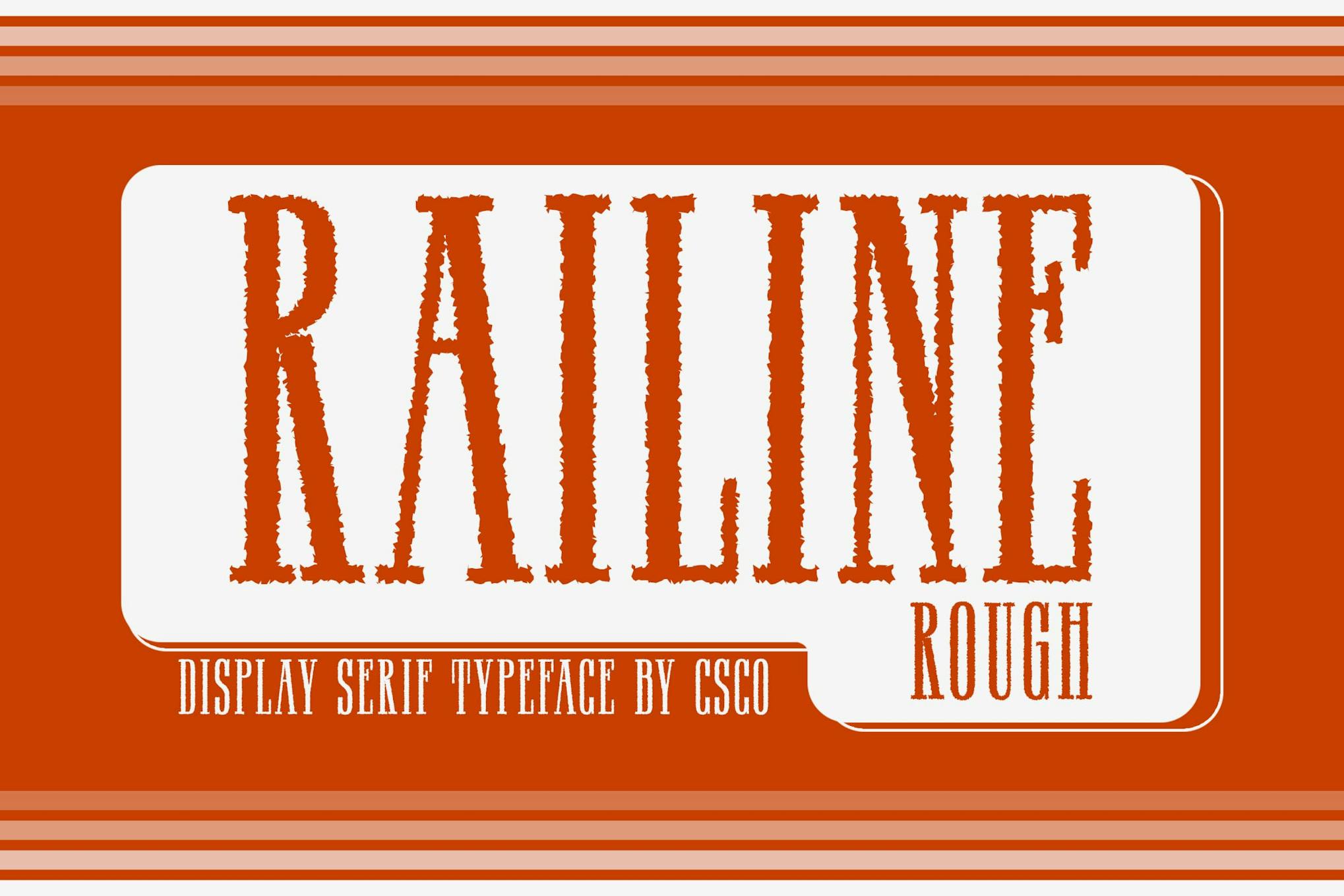
Railine Rough Font
Railine Rough Font Free Download offers a powerful blend of industrial grit and vintage charm, perfect for projects that demand a sense of history and authenticity. While you can download this font for free for testing purposes, for commercial use, you must purchase this font to unlock its full creative potential. This versatile typeface is ideal for a variety of projects, including rustic branding, retro logos, t-shirt designs, posters, and packaging for artisanal goods. What makes this font so exciting is its genuine, distressed texture, which gives every letter a weathered, hand-stamped quality that feels both personal and timeless. The Railine Rough font family includes a range of styles, such as Regular Rough, Bold Rough, and a complementary clean version, providing a complete and flexible design solution.
This isn’t just a font; it’s a story told through typography. The design of Railine Rough is inspired by old-school industrial signage and rugged, hardworking aesthetics. Its condensed letterforms and gritty texture give it a commanding presence, making it perfect for designs that need to feel strong, honest, and full of character. Whether you’re a designer creating branding for a craft brewery, a logo for a workshop, or a poster for a vintage market, this font provides the perfect foundation. The distressed look adds a layer of genuine authenticity that makes your work feel real and memorable.
The versatility of the Railine Rough family is one of its greatest strengths. You can use the rough styles to create a weathered, vintage effect for headlines, or switch to the clean version for a more polished yet still impactful look in supporting text. This combination allows for dynamic and layered designs that maintain a cohesive visual identity. Each character has been meticulously crafted to ensure that the distressed effect is both realistic and visually appealing, without compromising readability. It's a font that works hard, delivering a look that is both rugged and refined, making it a valuable asset for any designer.